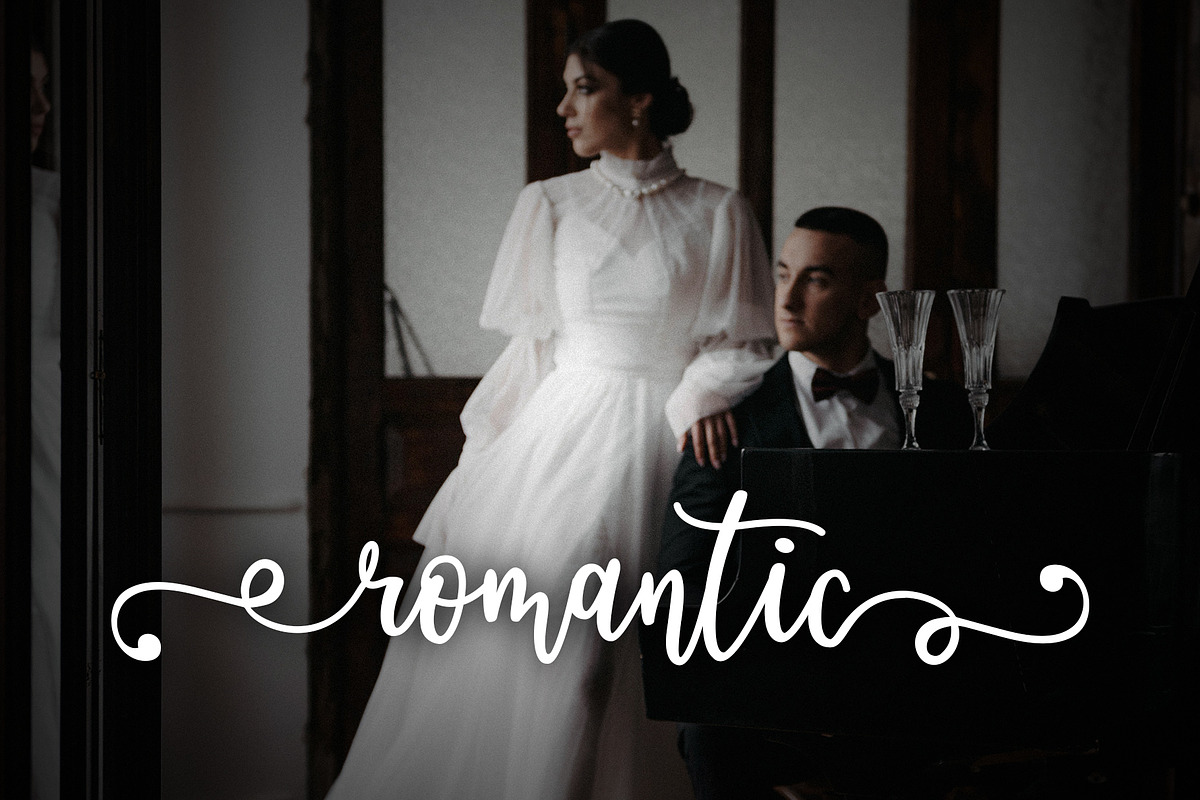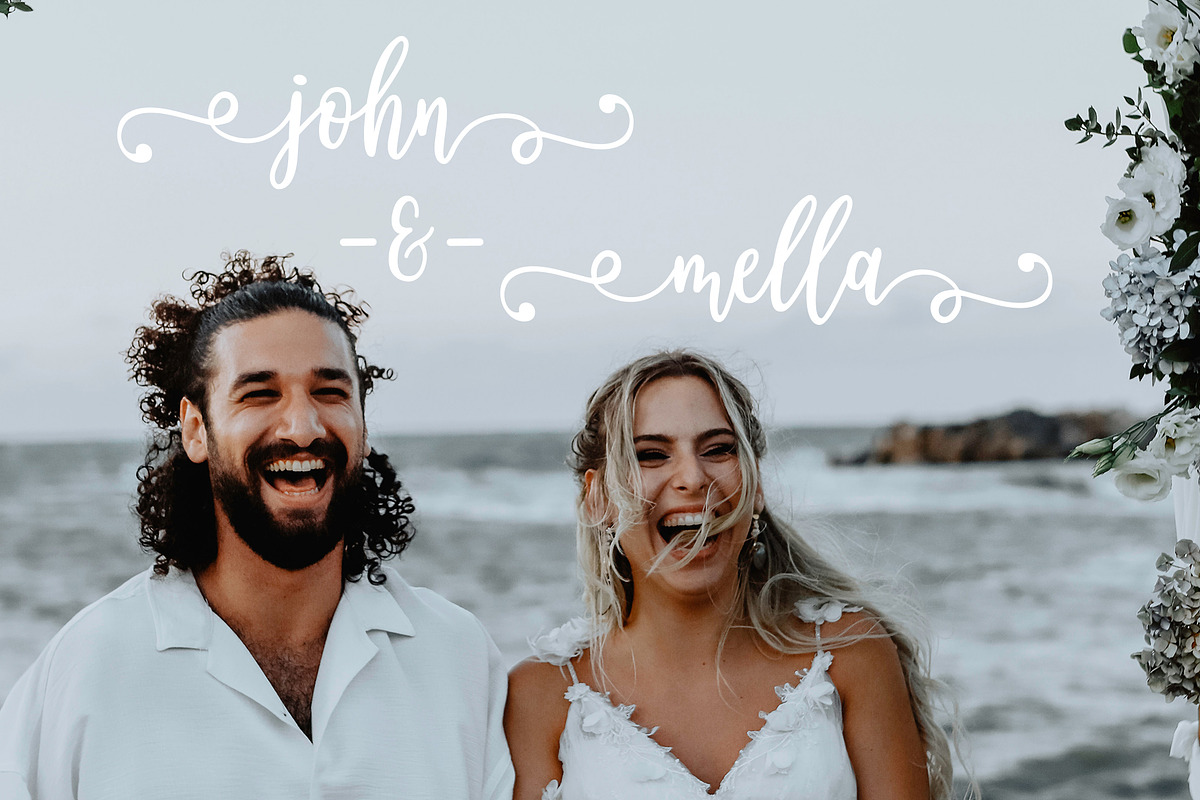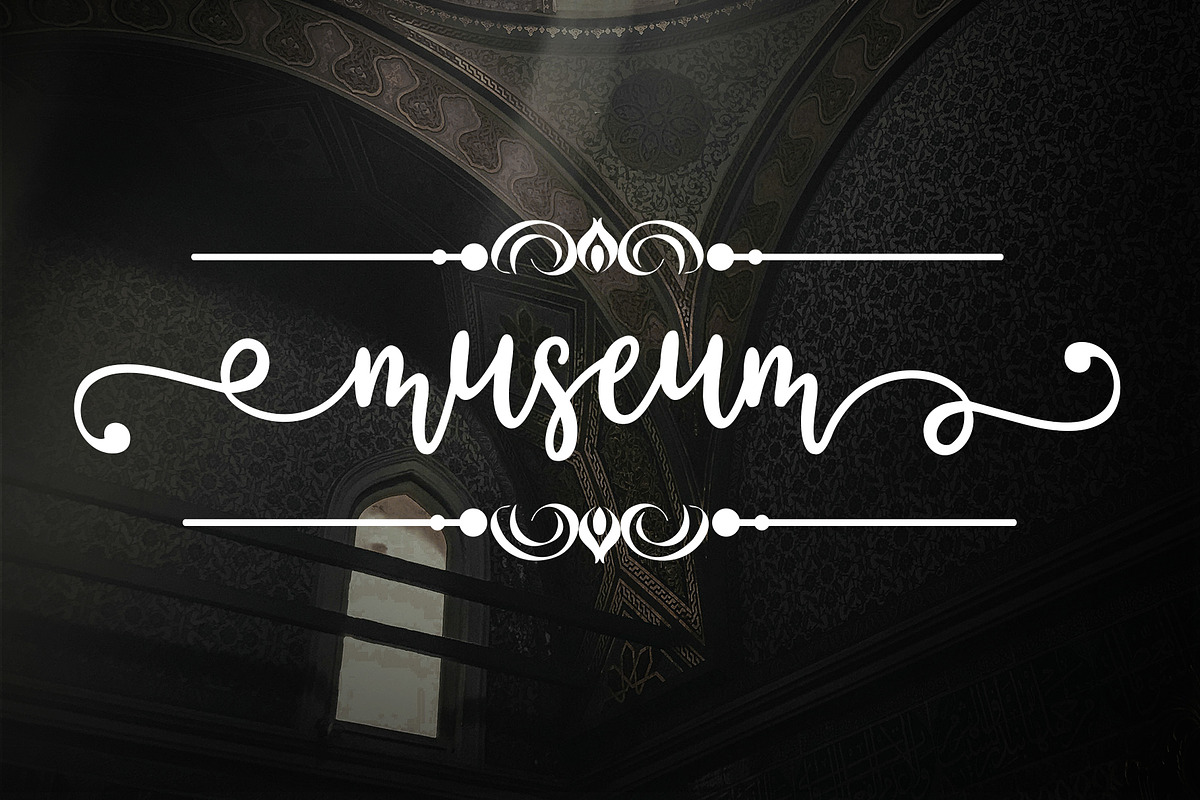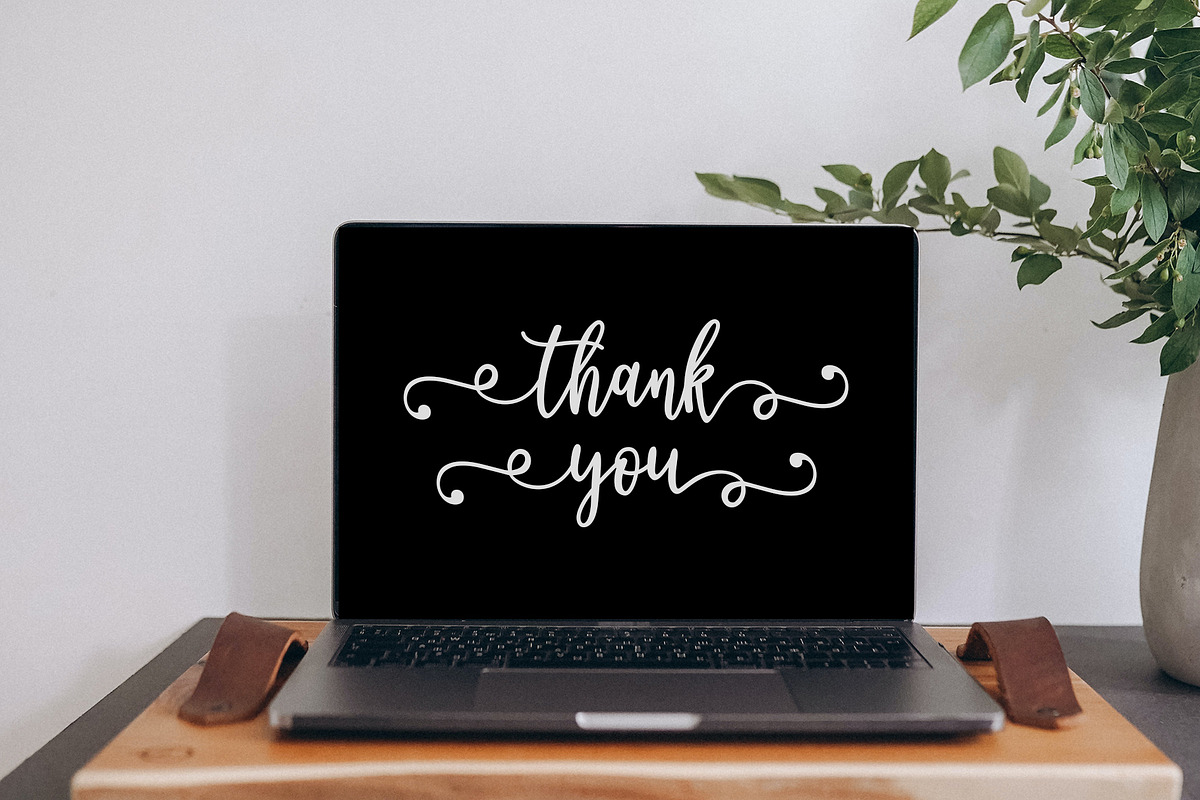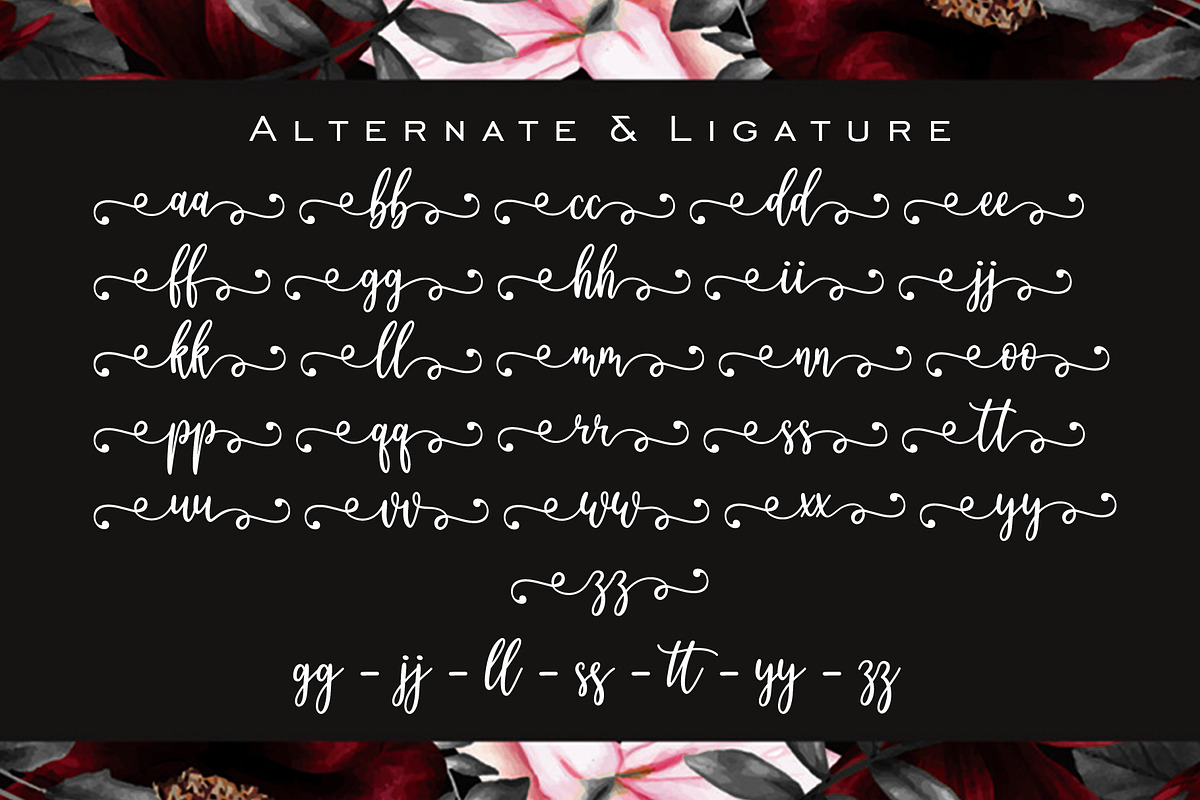
Adelia Font is a beautiful and luxurious calligraphy typeface that blends modern elegance with classic artistry. Designed with graceful curves and refined decorative details, Adelia delivers a sophisticated handwritten look that instantly elevates any design.
Its flowing letterforms and stylish alternates make Adelia a perfect choice for projects that need a premium, romantic, and artistic touch.
Best Uses for Adelia Modern Calligraphy Font
- Wedding invitations & event stationery
- Luxury logo & brand identity design
- Fashion & beauty branding
- Product packaging & labels
- Editorial designs & social media graphics
- Elegant print & digital projects